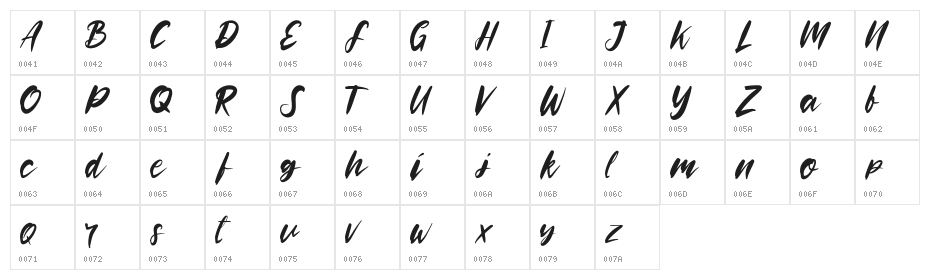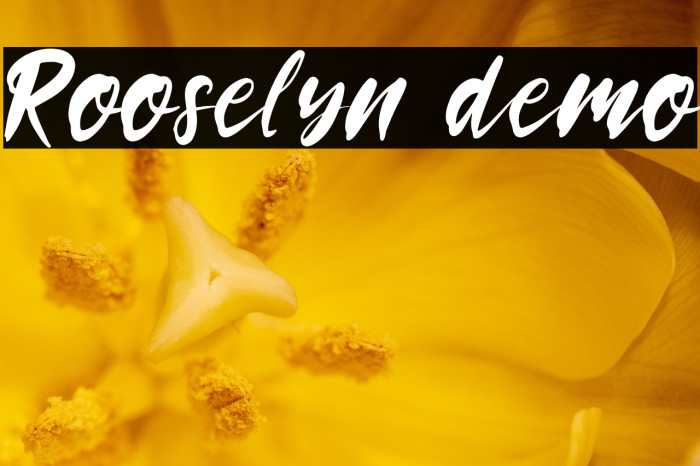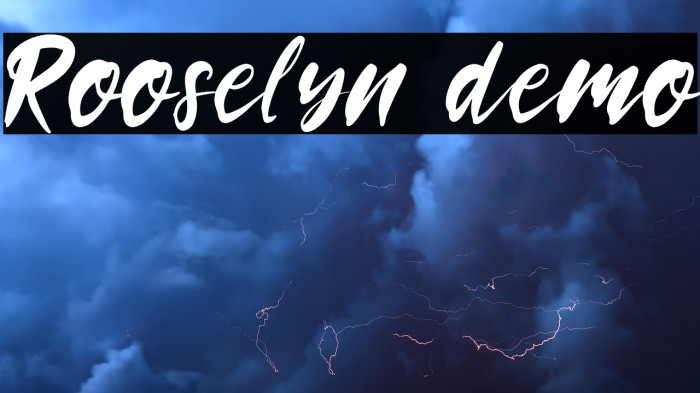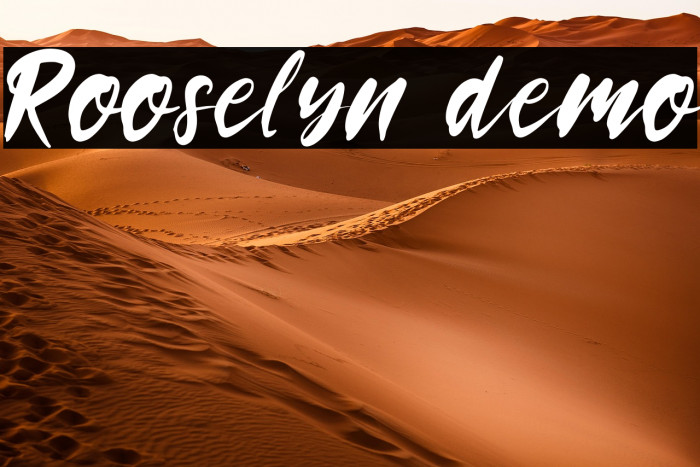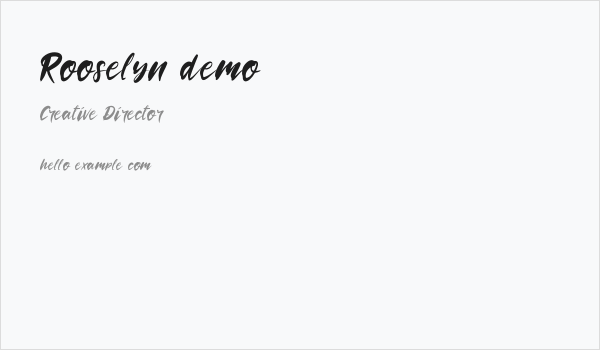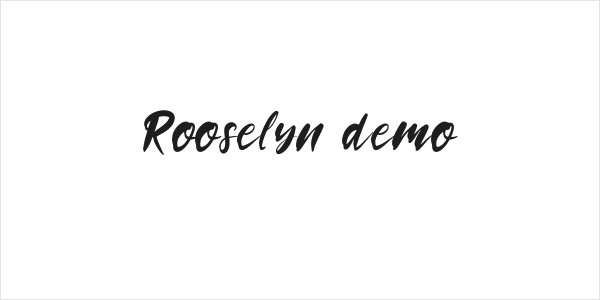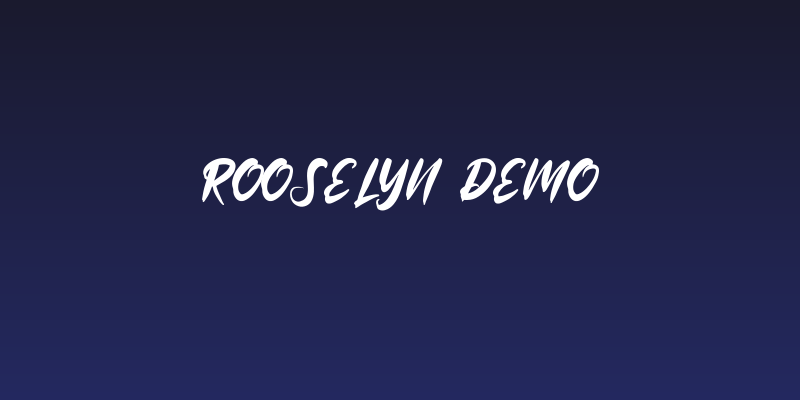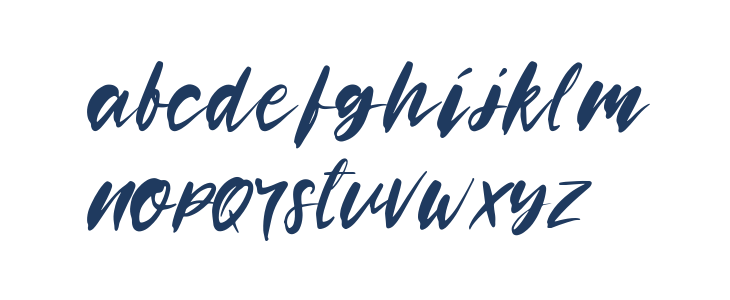
Rooselyn demo Font
Rooselyn demo Description
This font exhibits a bold and expressive script style, characterized by its fluid and dynamic strokes. The letters are crafted with a sense of movement, giving a lively and energetic feel. The uppercase letters are particularly striking, with sweeping curves and varying stroke widths that add a touch of elegance and flair. The lowercase letters maintain a consistent flow, complementing the uppercase with their smooth and connected forms. The overall design is modern yet retains a classic script charm, making it versatile for various creative applications.